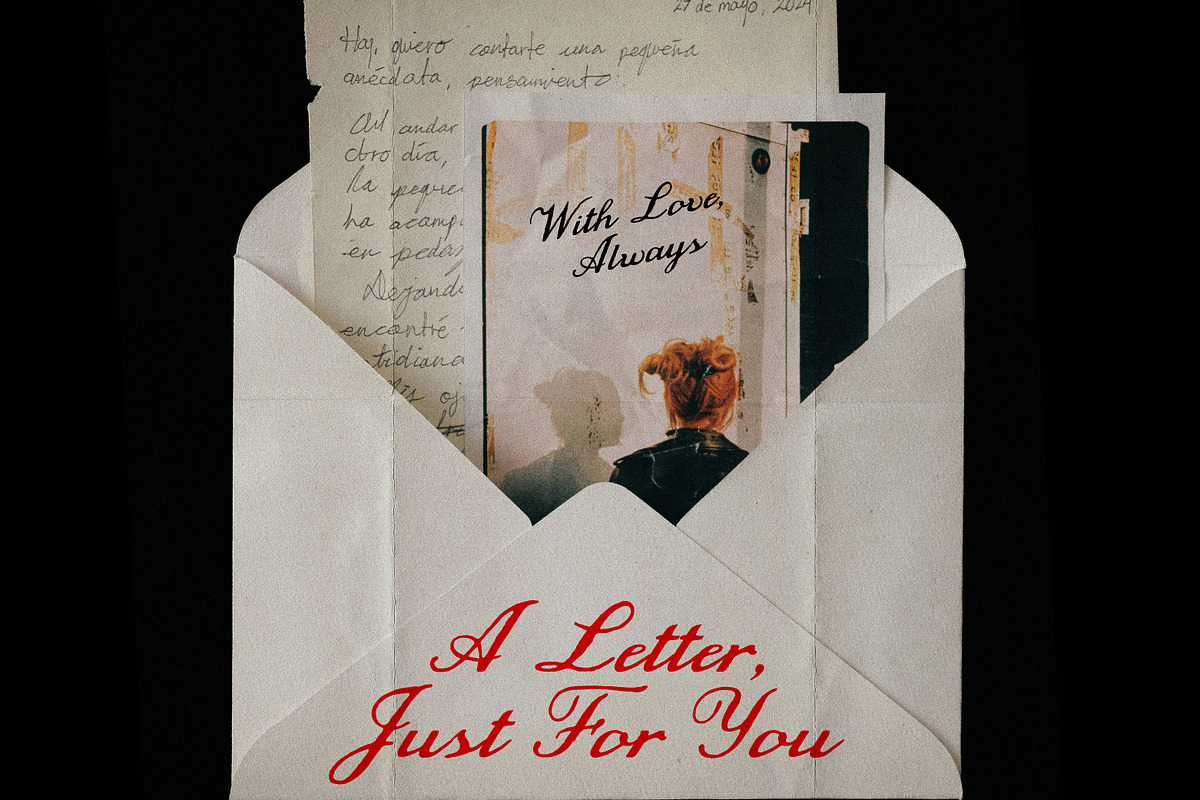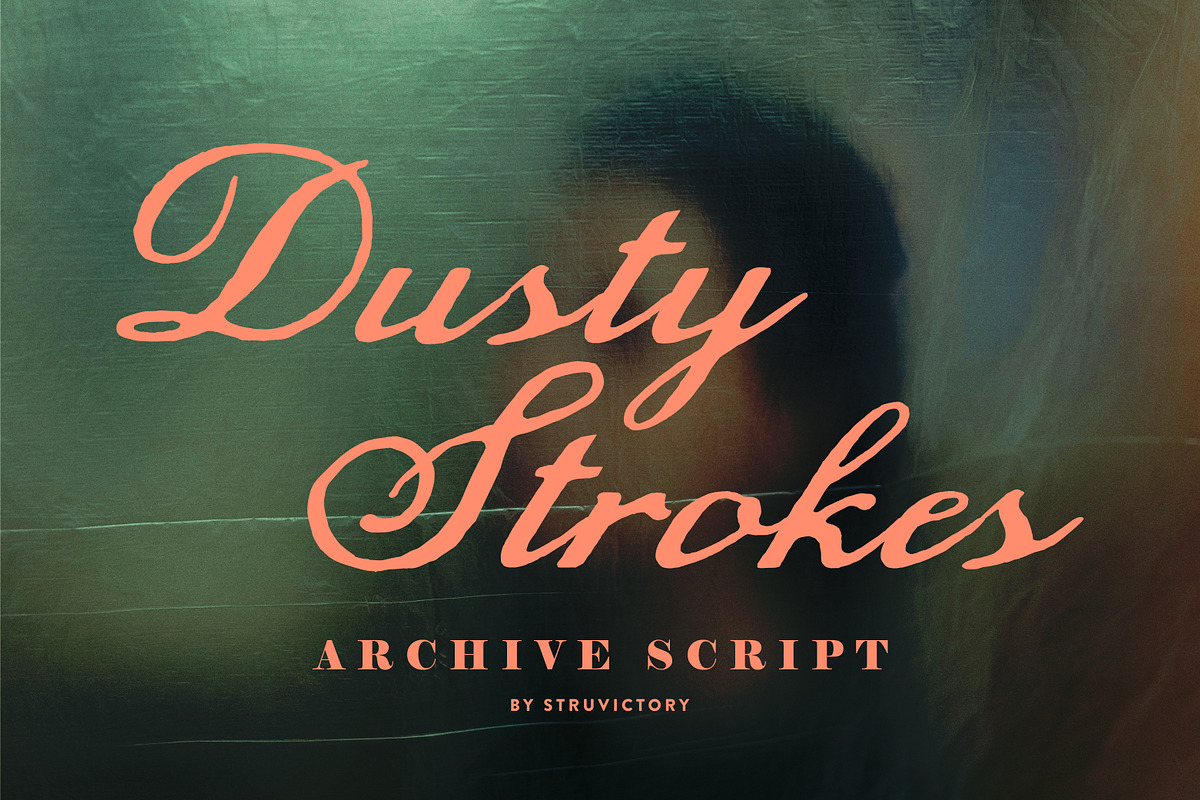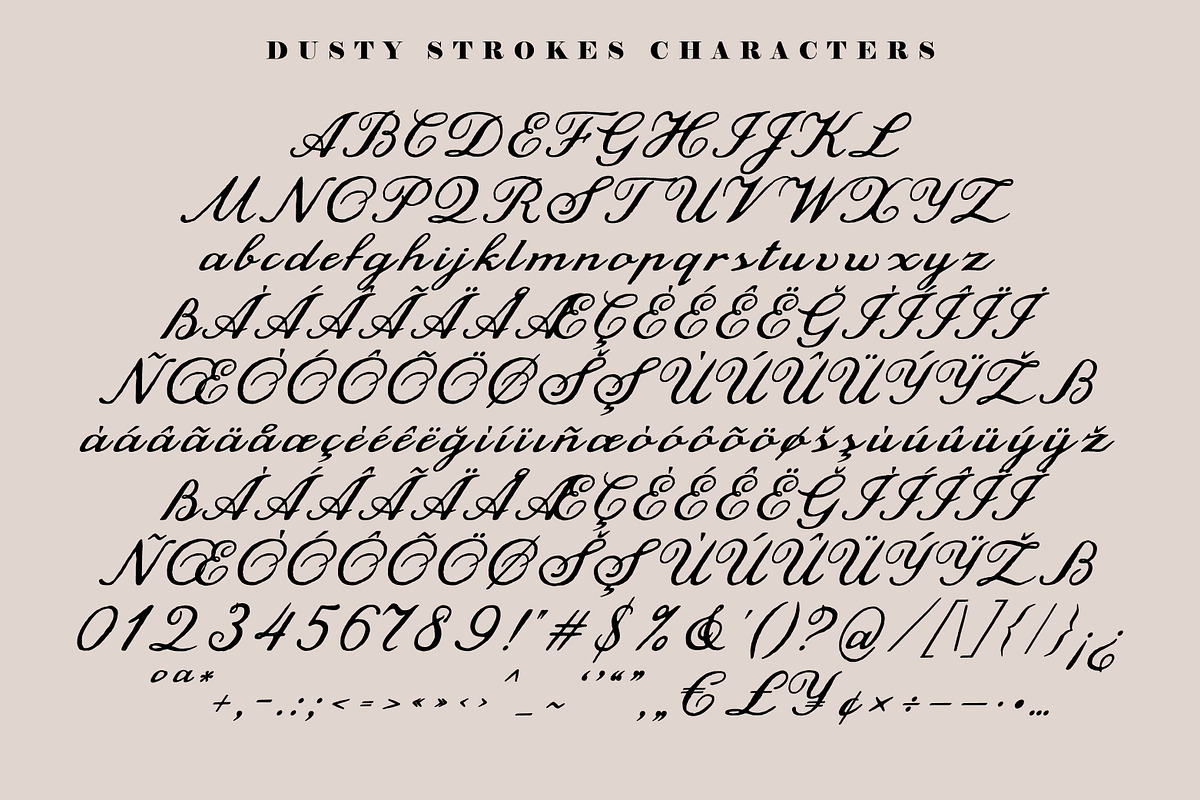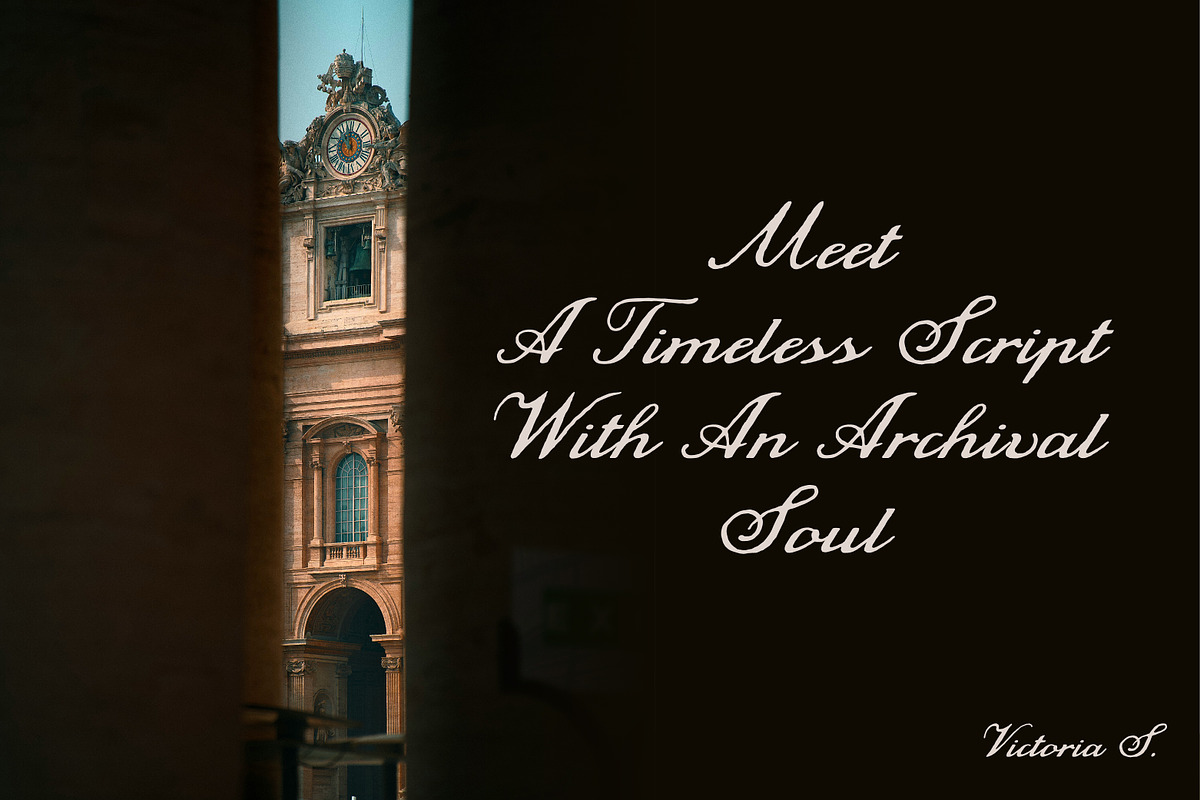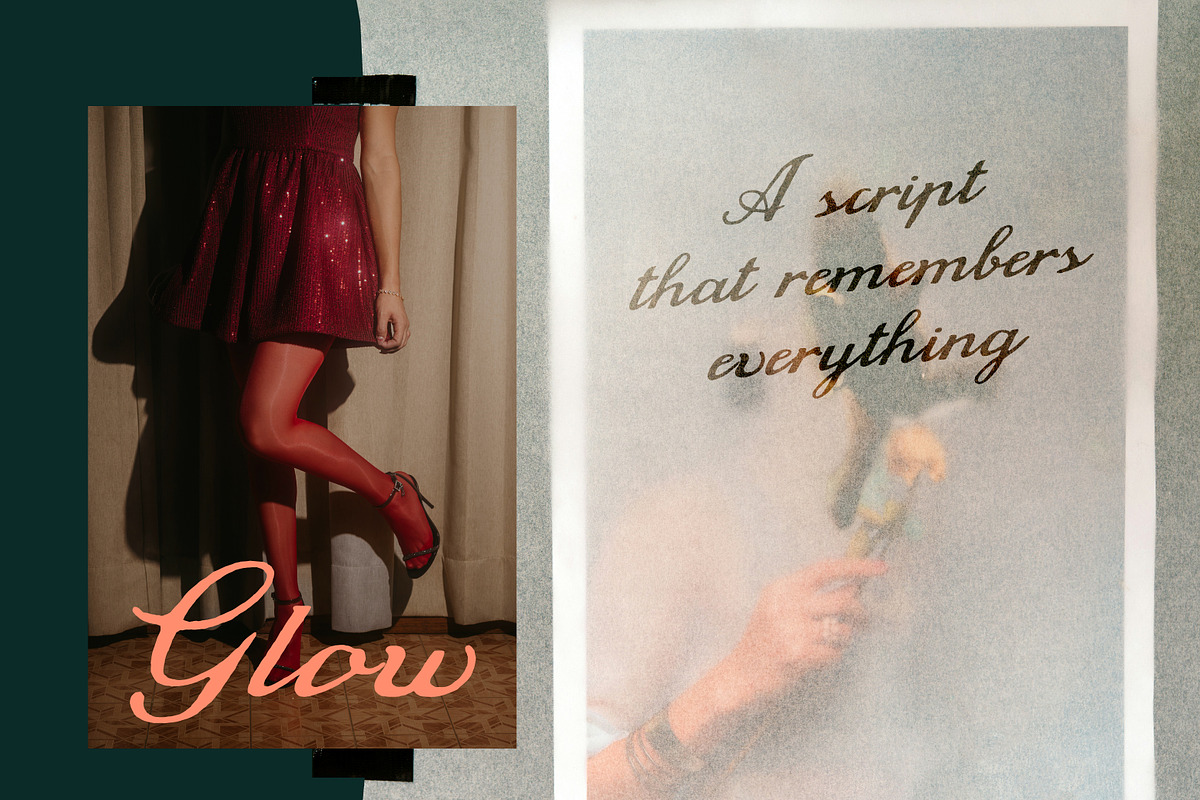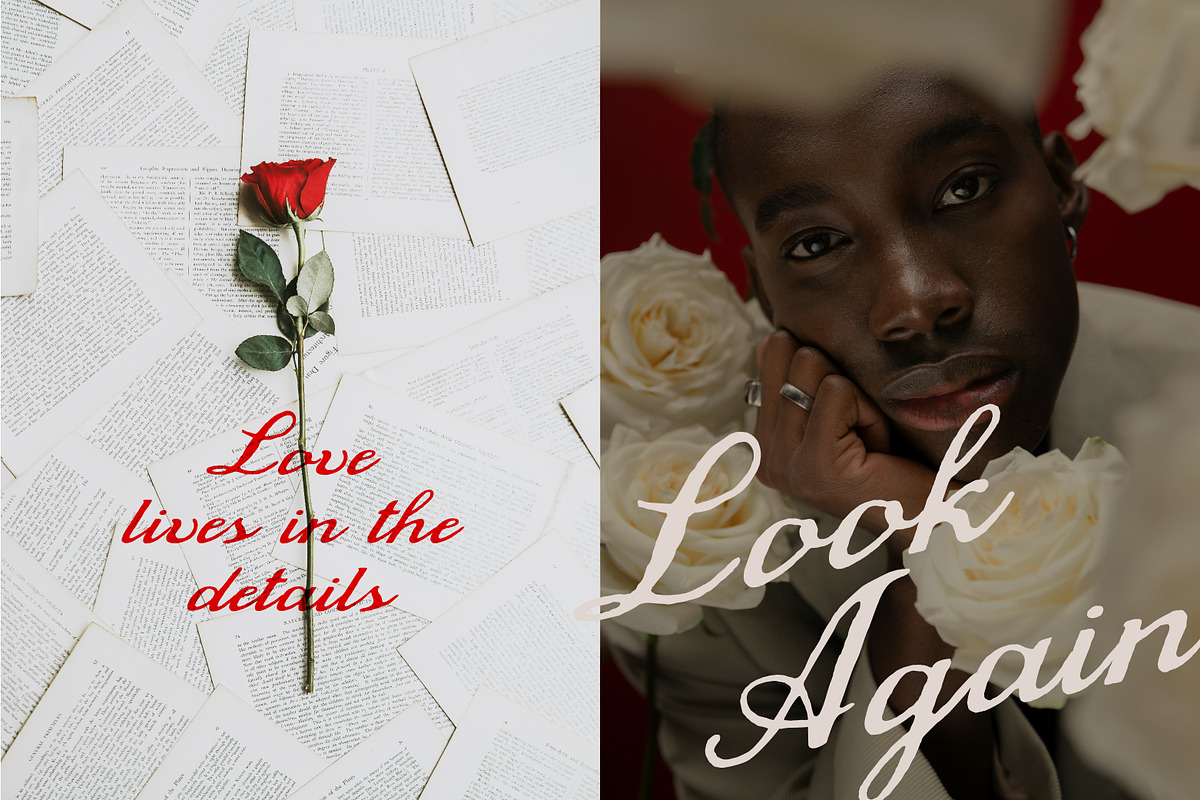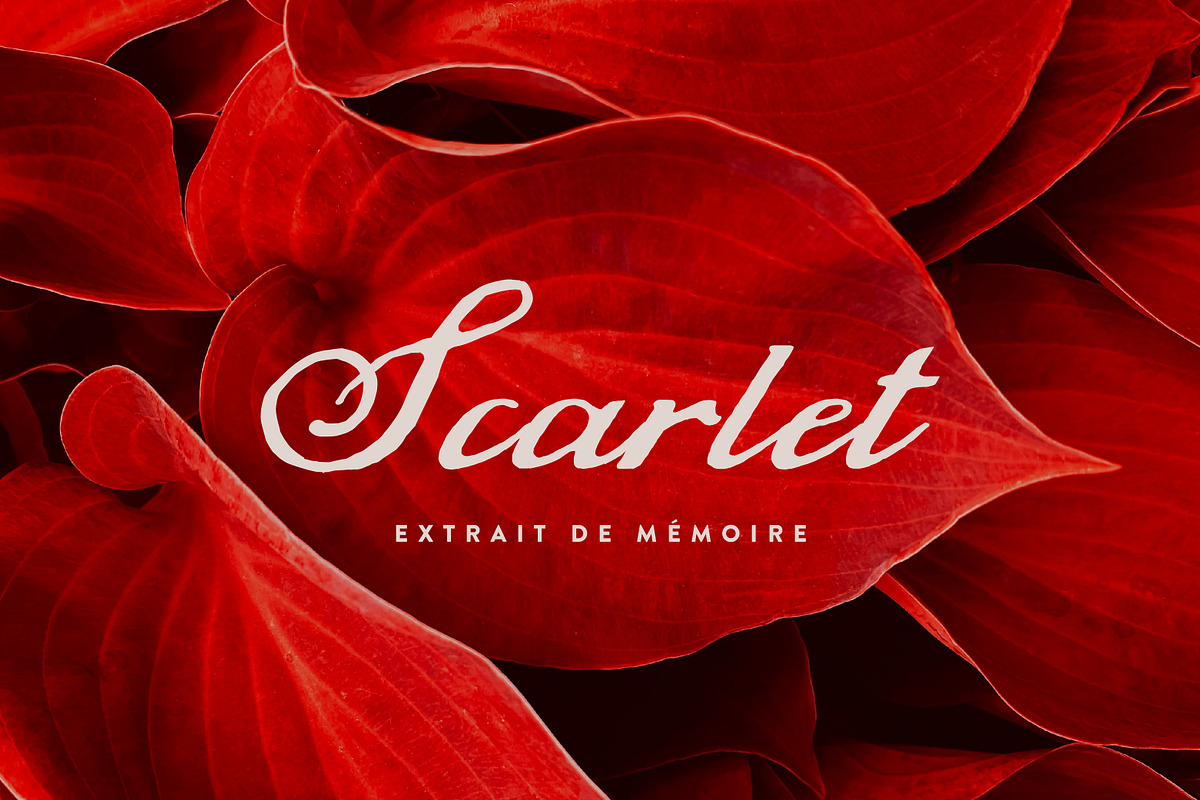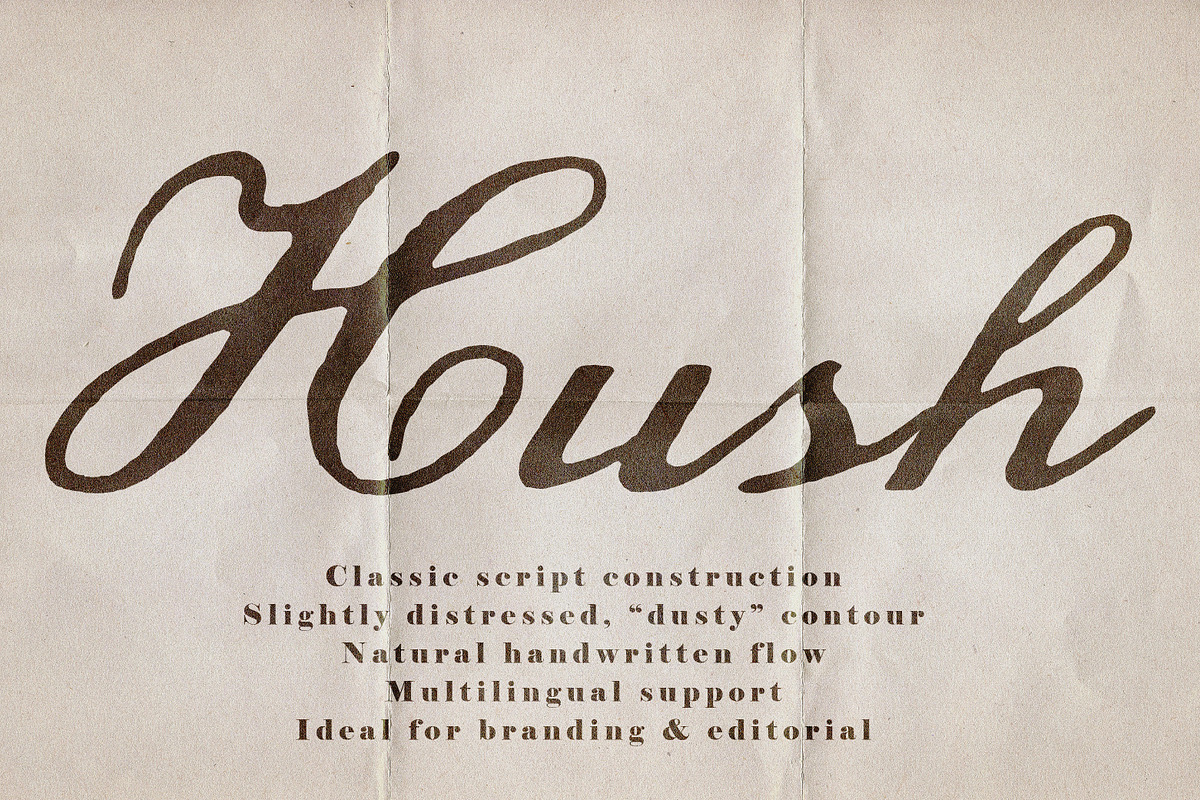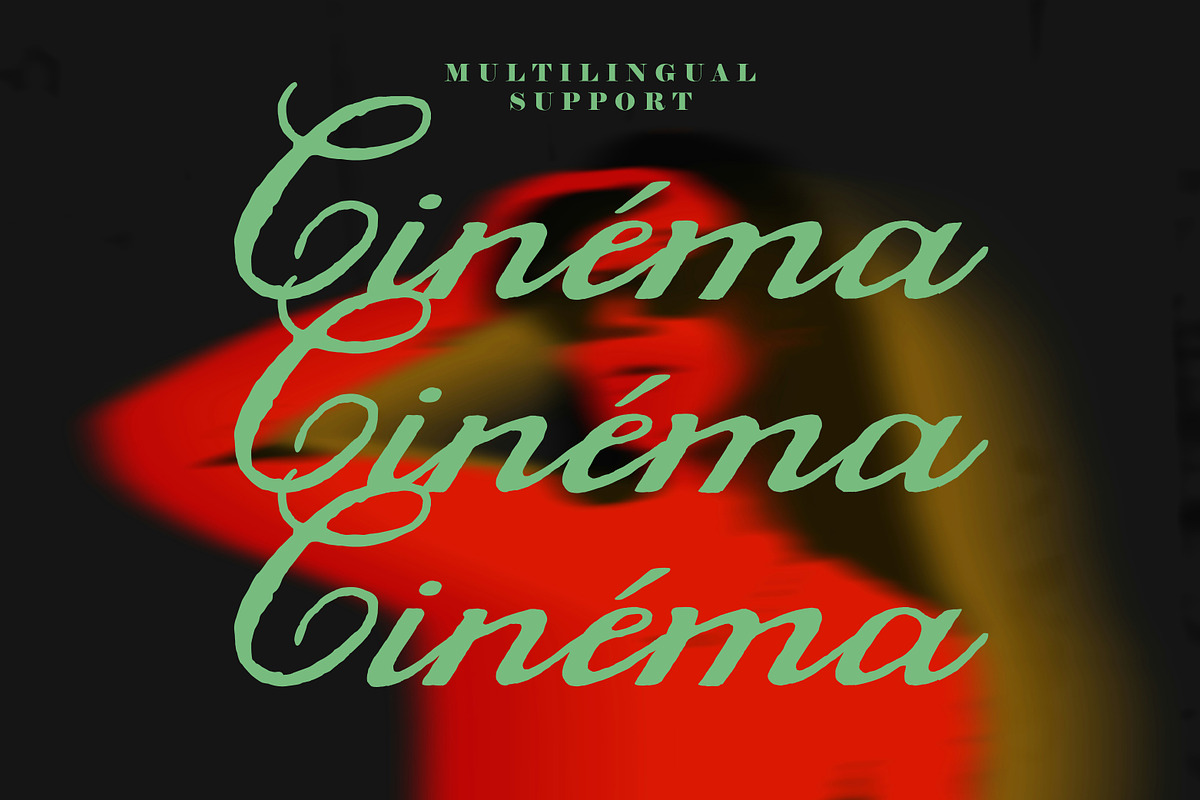
Dusty Strokes Archive Vintage Script
Dusty Strokes is a refined script font with a vintage soul and a slightly worn, textured edge. Inspired by classic calligraphy and archival lettering, it blends elegant flowing forms with subtle irregularities that add character and authenticity. The strokes feel soft yet expressive, with a natural rhythm that keeps the lettering alive without losing readability. Designed for display use, Dusty Strokes works beautifully in branding, editorial layouts, packaging, and romantic or nostalgic visuals. It brings a sense of timeless charm, like ink on aged paper—perfect for projects that need both sophistication and a touch of imperfection.
Dusty Strokes supports the most popular latin-based languages, you can check the symbol you need by typing a couple of words in the font preview box.